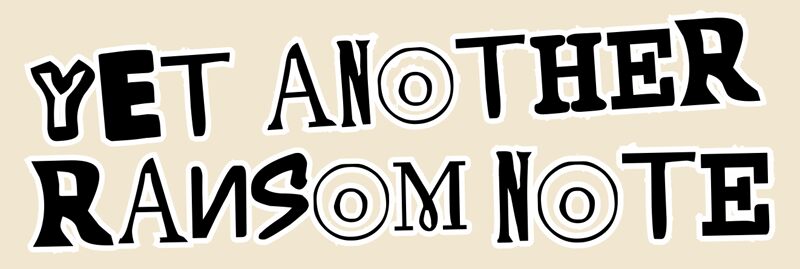
Yet Another Ransom Note by Phelan Riessen is a free decorative ransom-note font assembled from deliberately mismatched letterforms. Its mix of slabby serifs, stark geometric shapes, circled characters, and boxed forms creates the cut-and-paste disorder of a handmade message.
Posters and album artwork gain an immediate collage quality from the abrupt shifts in weight, proportion, and style. It also fits mystery games and punk merchandise. The changing letters make language itself part of the crime-story or underground music imagery.